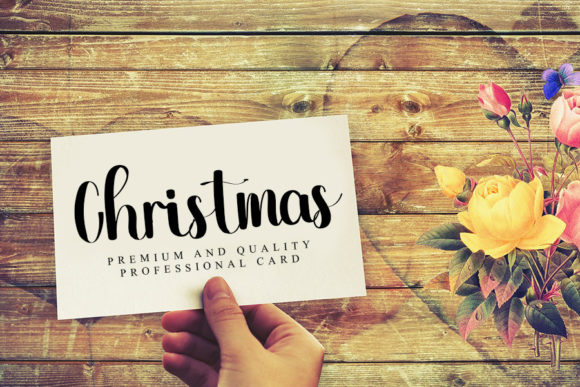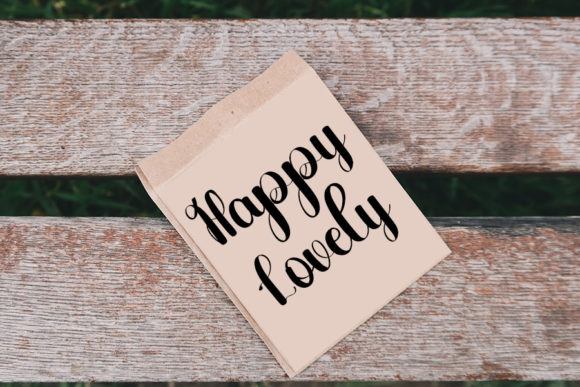
About Vintage Christmas Font
Vintage Christmas is a unique and elegant handwritten font. It looks beautiful on a variety of designs requiring a personalized style, such as wedding invitations, thank you cards, weddings, greeting cards, logos and so on.